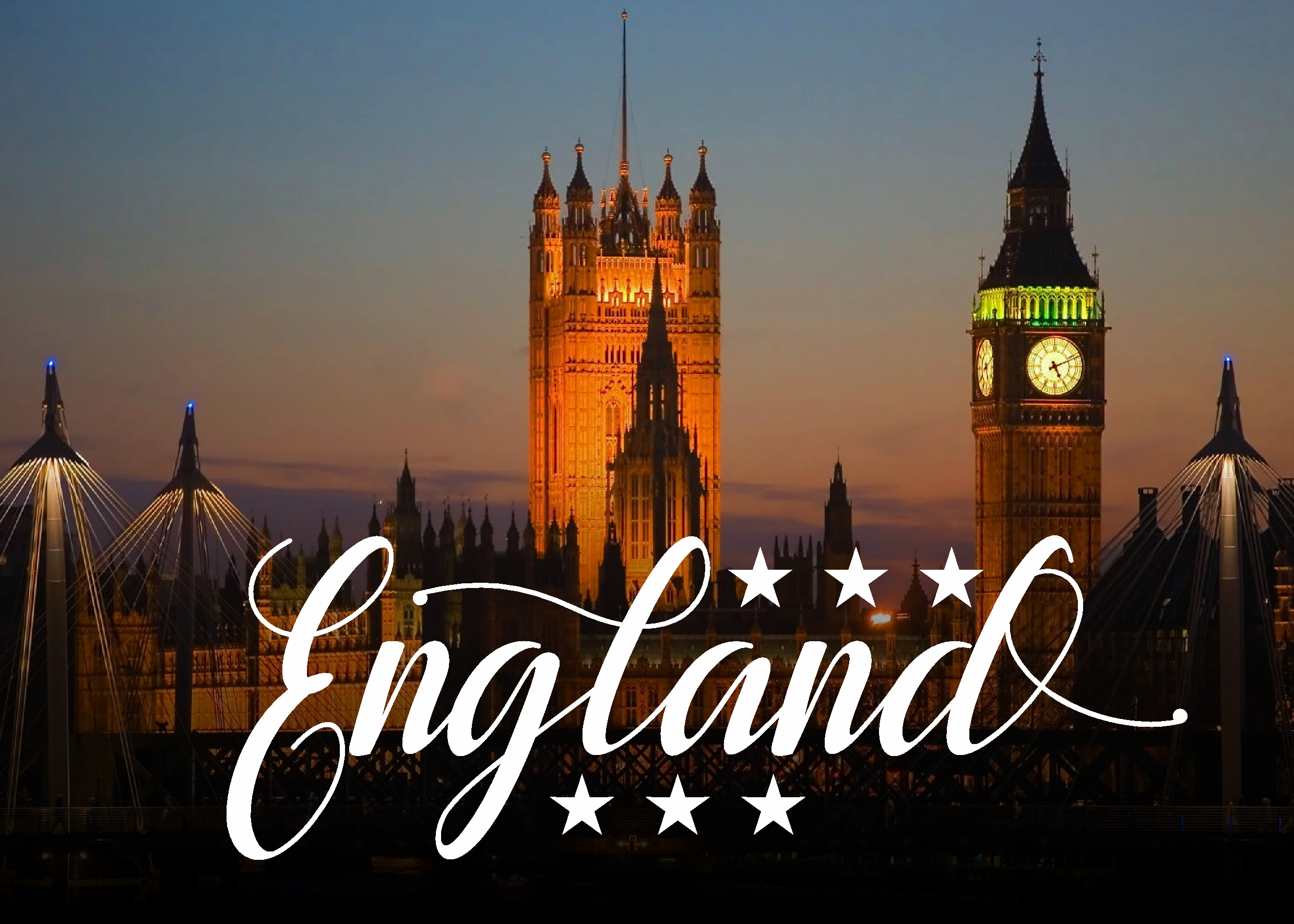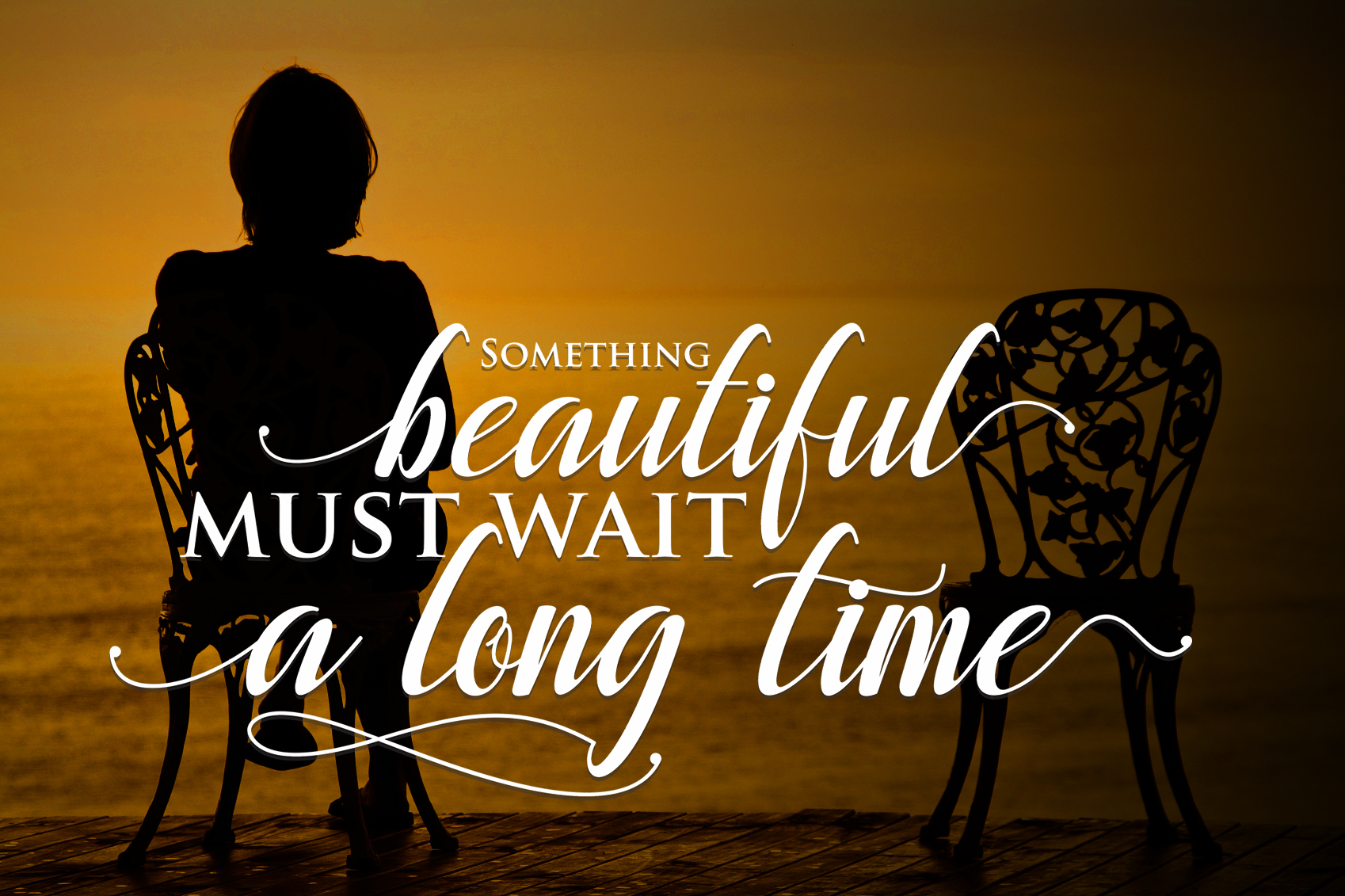
Charming Script Font
Charming is a casual script font. No matter the topic, this font will be an incredibly asset to your fonts’ library, as it has the potential to elevate any creation.